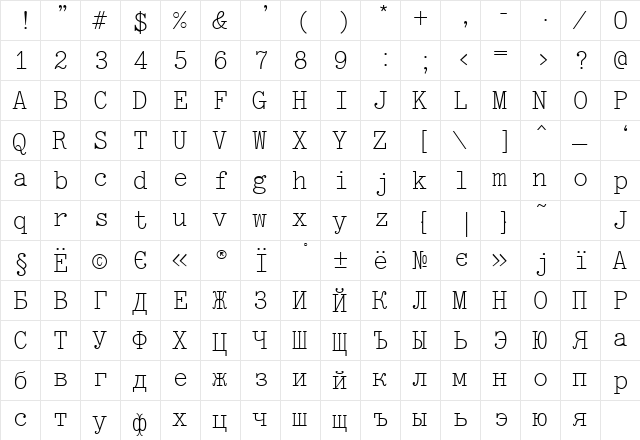
OptimusC Normal
Design Context for OptimusC Typeface
OptimusC is a composed and adaptable typeface that performs quietly and consistently across a wide range of design contexts.